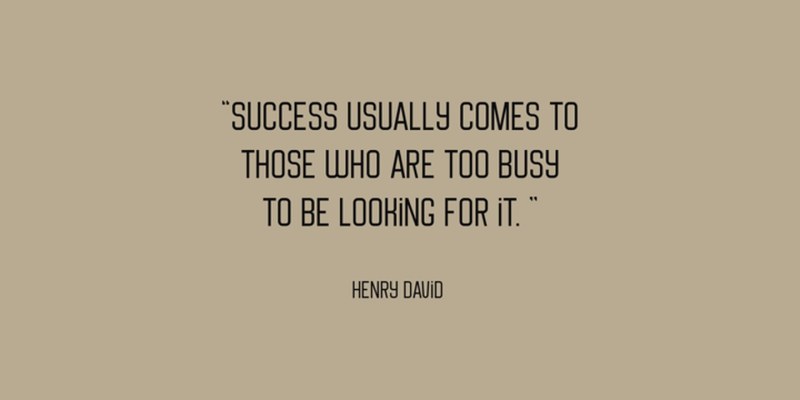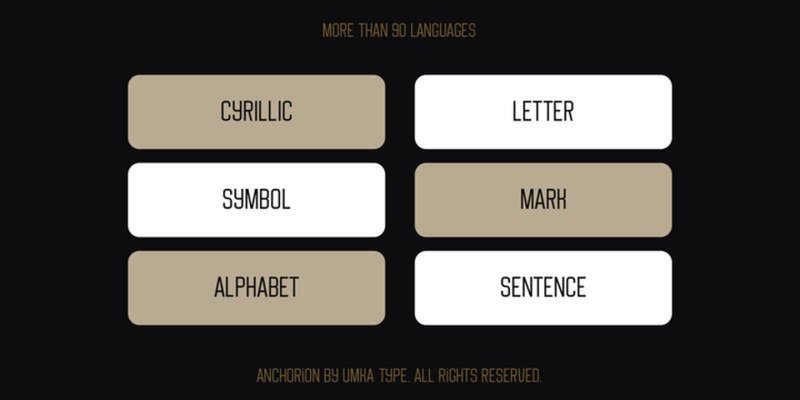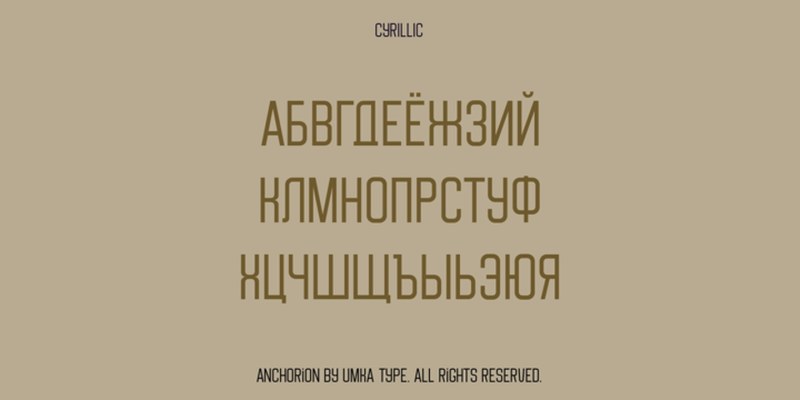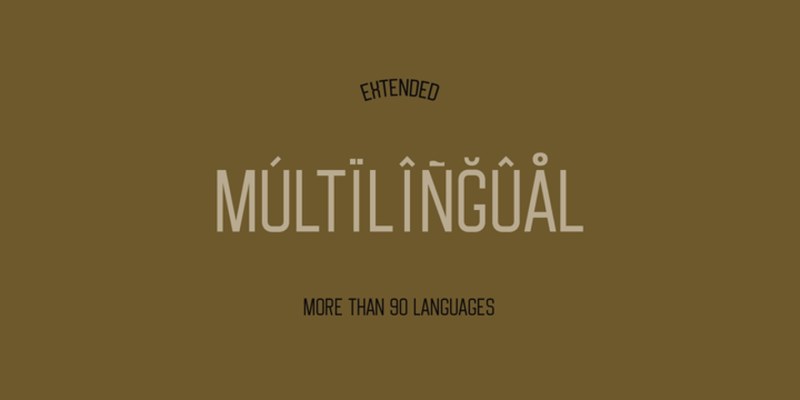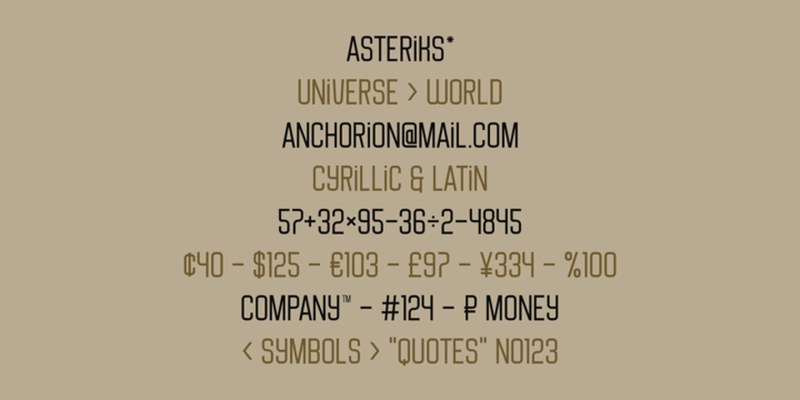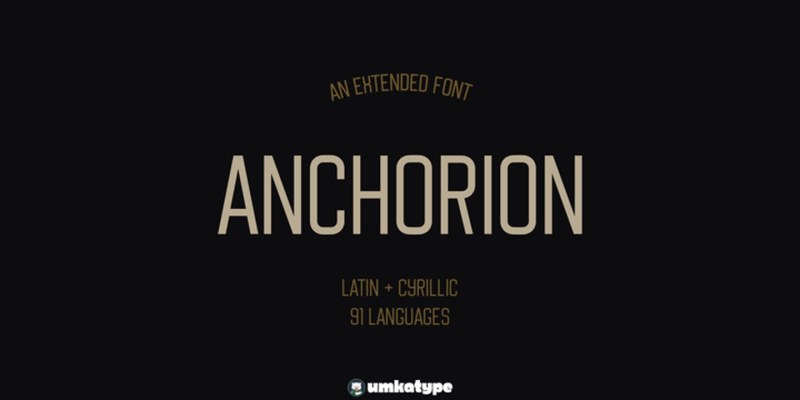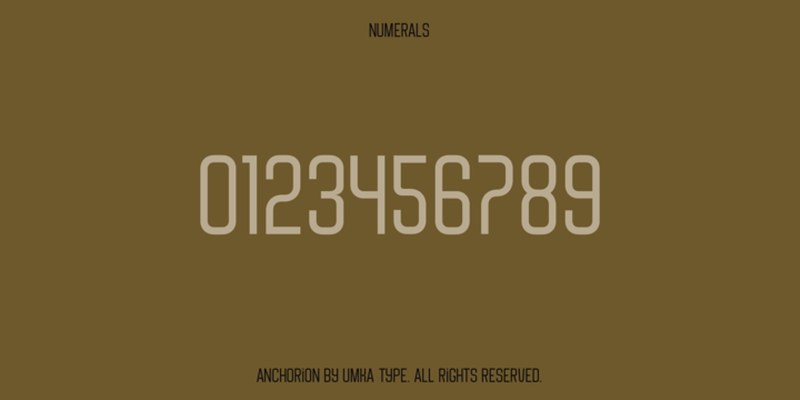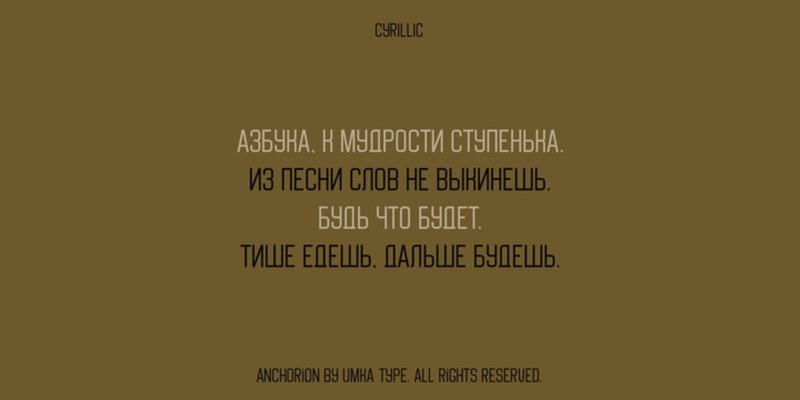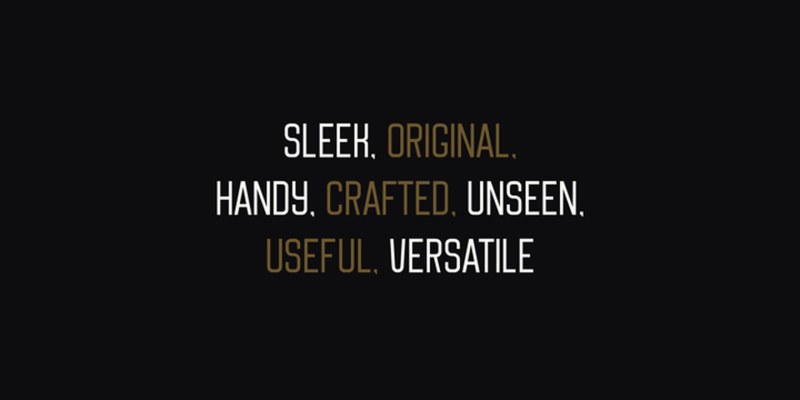
Anchorion Font
Anchorion is a modern and sleek font. It has 91 languages support: Belarusian, Russian, Afrikaans, Albanian, Asu, Basque, Bemba, Bena, Breton, Catalan, Chiga, Colognian,…
Anchorion is a modern and sleek font. It has 91 languages support:
Belarusian, Russian, Afrikaans, Albanian, Asu, Basque, Bemba, Bena, Breton, Catalan, Chiga, Colognian, Cornish, Croatian, Czech, Danish, Dutch, Embu, English, Esperanto, Estonian, Faroese, Filipino, Finnish, French, Friulian, Galician, German, Gusii, Hungarian, Indonesian, Irish, Italian, Kabuverdianu, Kalenjin, Kamba, Kikuyu, Kinyarwanda, Latvian, Lithuanian, Lower Sorbian, Luo, Luxembourgish, Luyia, Machame, Makhuwa-Meetto, Makonde, Malagasy, Maltese, Manx, Meru, Morisyen, North Ndebele, Norwegian Bokmål, Norwegian Nynorsk, Nyankole, Oromo, Polish, Portuguese, Quechua, Romanian, Romansh, Rombo, Rundi, Rwa, Samburu, Sango, Sangu, Scottish Gaelic, Sena, Serbian, Shambala, Shona, Slovak, Soga, Somali, Spanish, Swahili, Swedish, Swiss German, Taita, Teso, Turkish, Upper Sorbian, Uzbek (Latin), Volapük, Vunjo, Walser, Welsh, Western Frisian, Zulu
Where Anchorion Font works best
Startups & tech
Anchorion Font fits product landing pages, app stores and pitch decks with a contemporary feel.
Architecture & real estate
Modern geometric forms suit property brochures, signage and portfolio sites.
Corporate identity
A modern typeface keeps annual reports and presentations clean and current.
What is Anchorion Font good for?